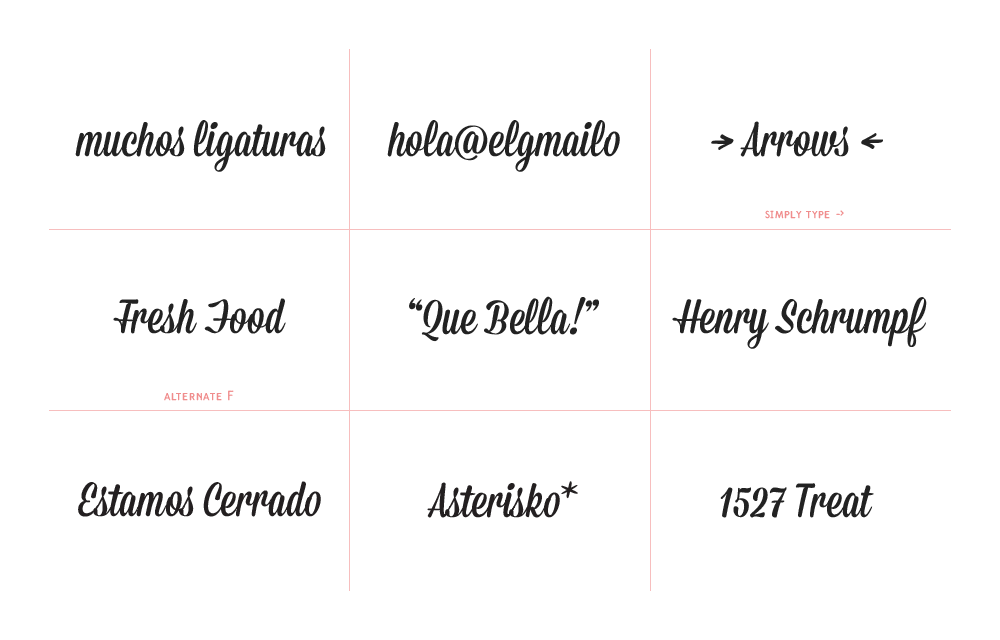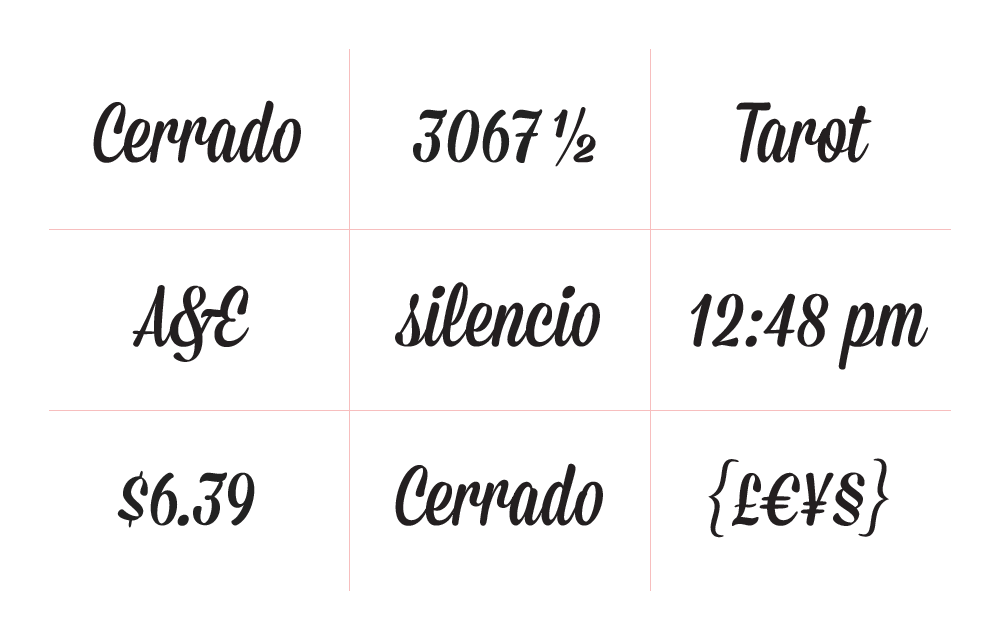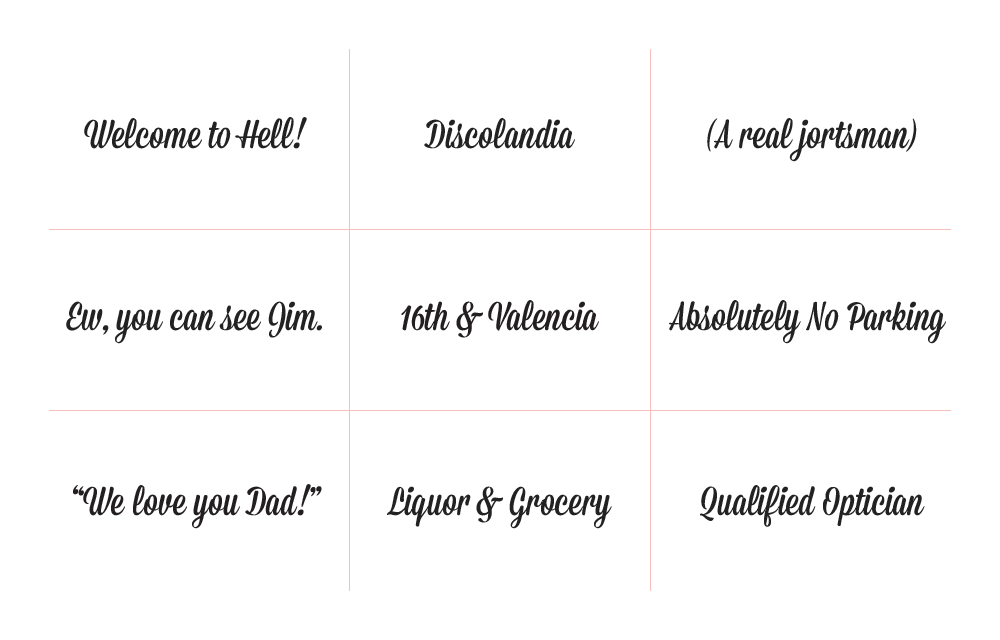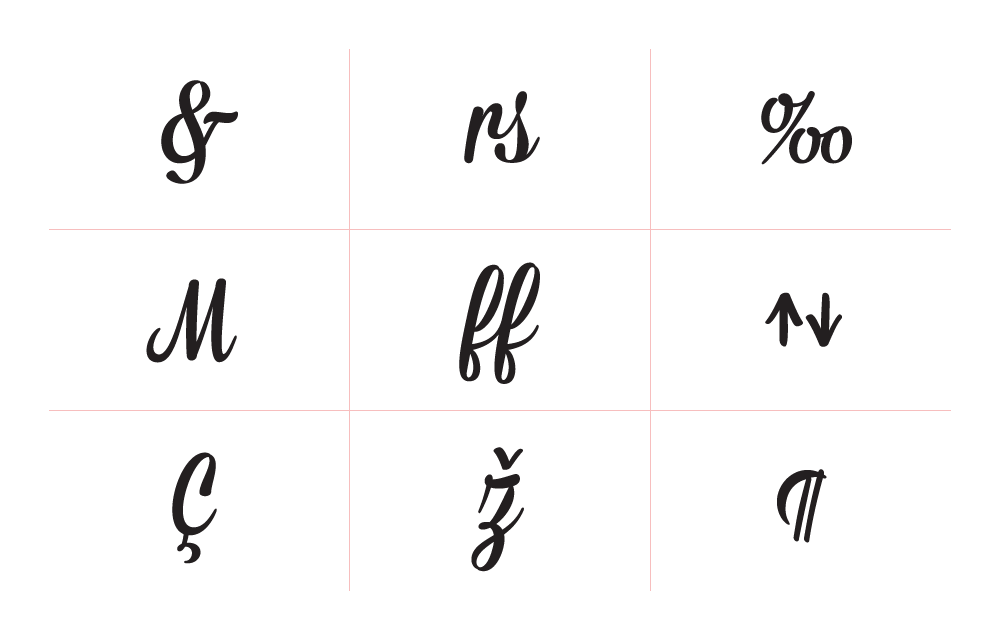
Mission Script
A condensed Script, inspired by San Francisco's Mission District
The first of the Mission Collection, Mission Script is a signage-lovers wet dream. Condensed, casual, sweet, and sincere. A celebration of the brush. Scripts rule.
Designed by James T. Edmondson